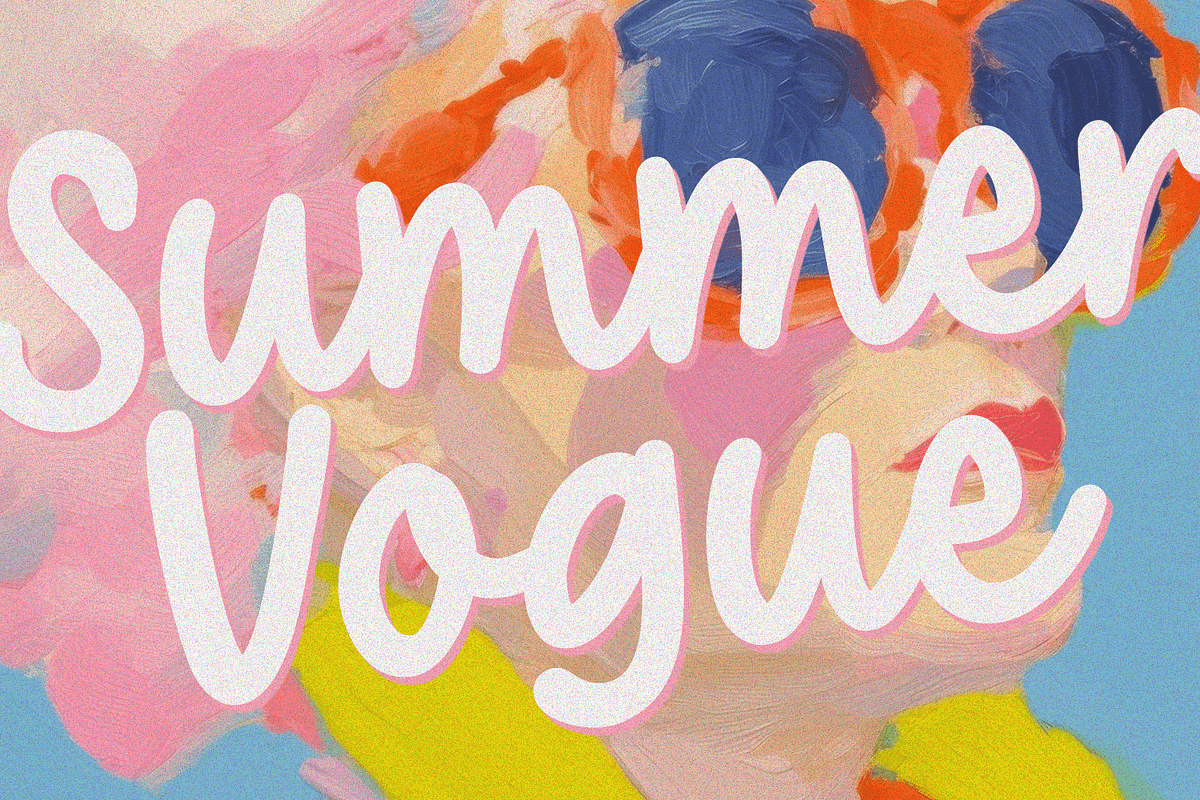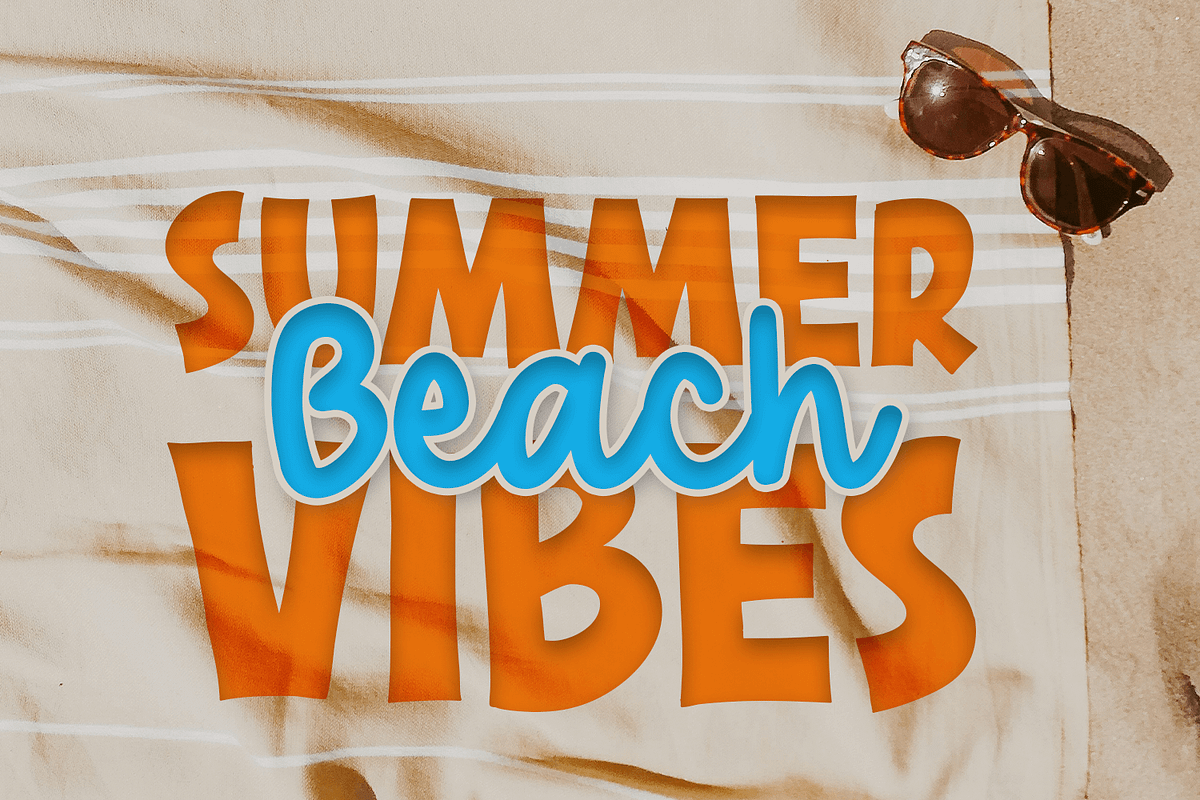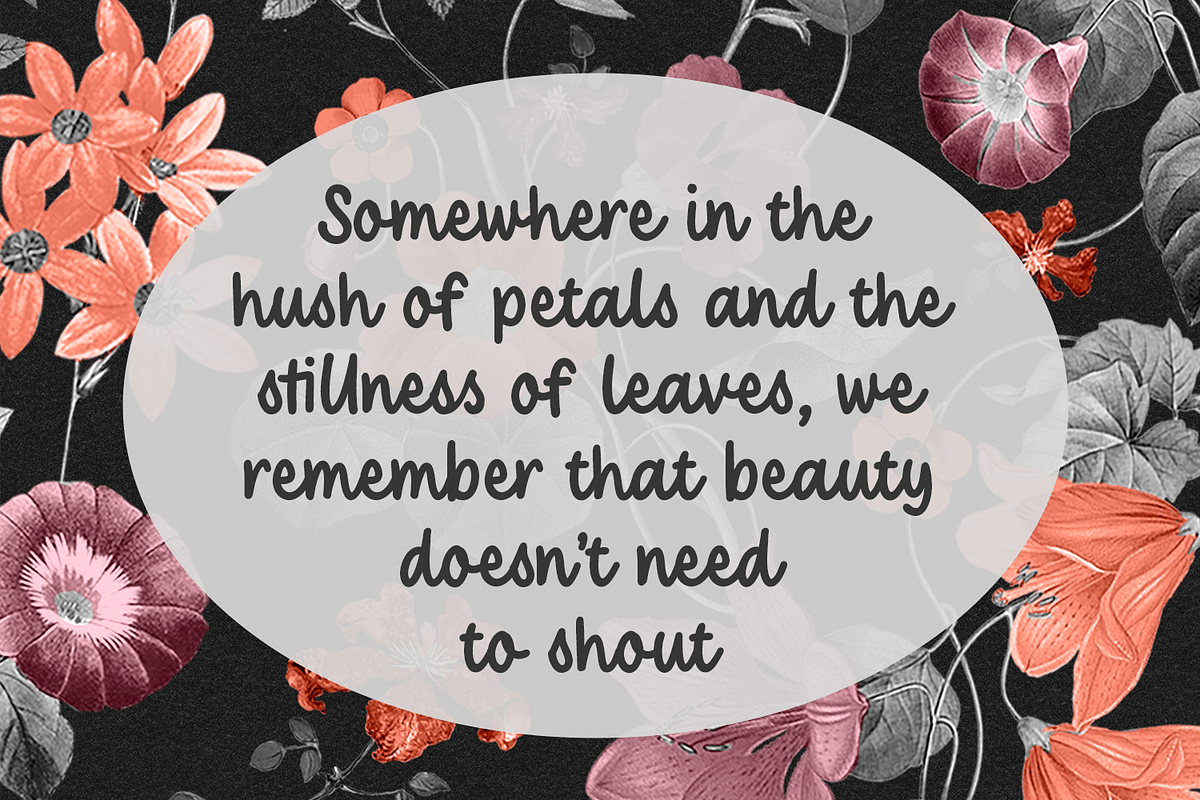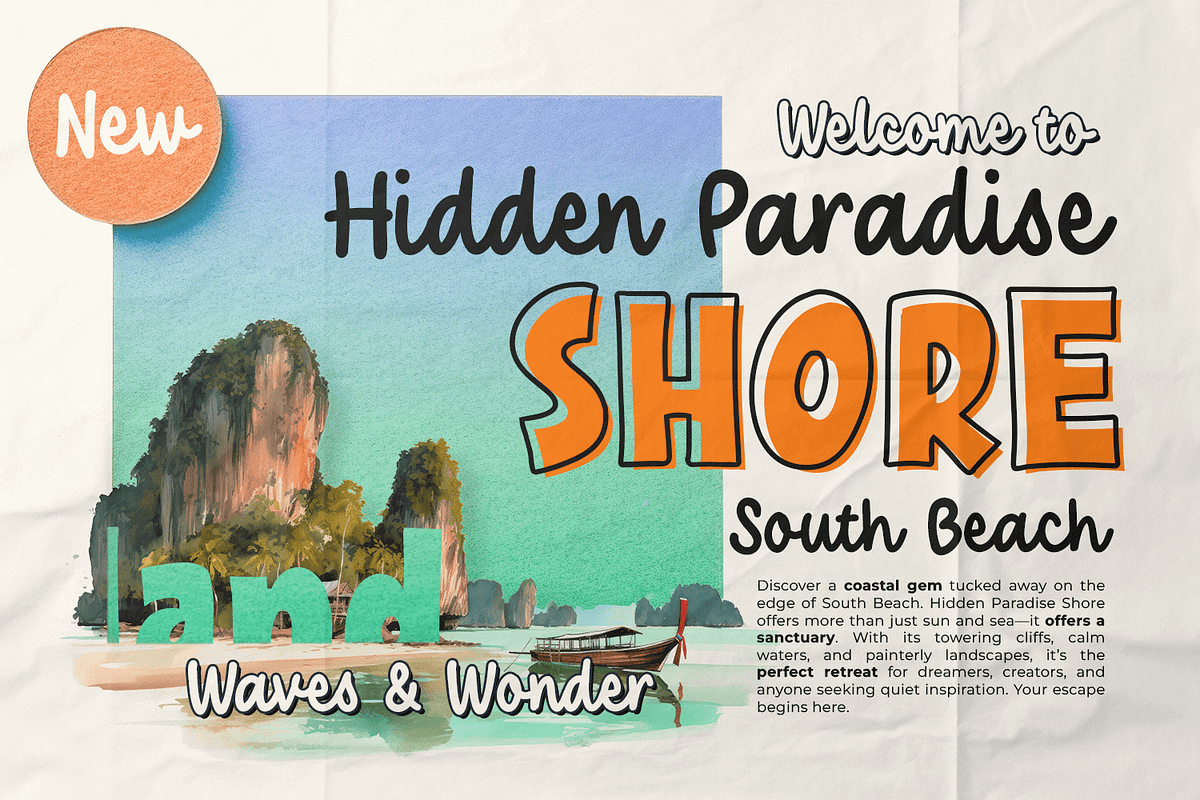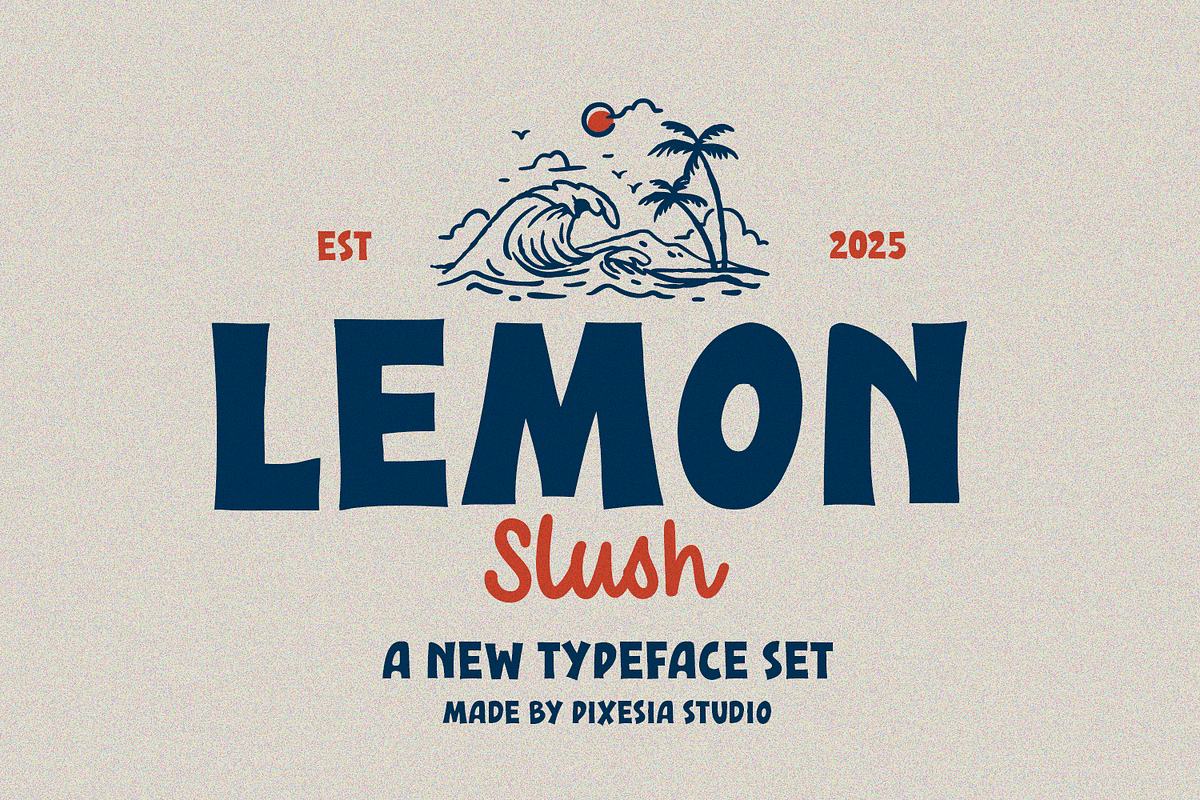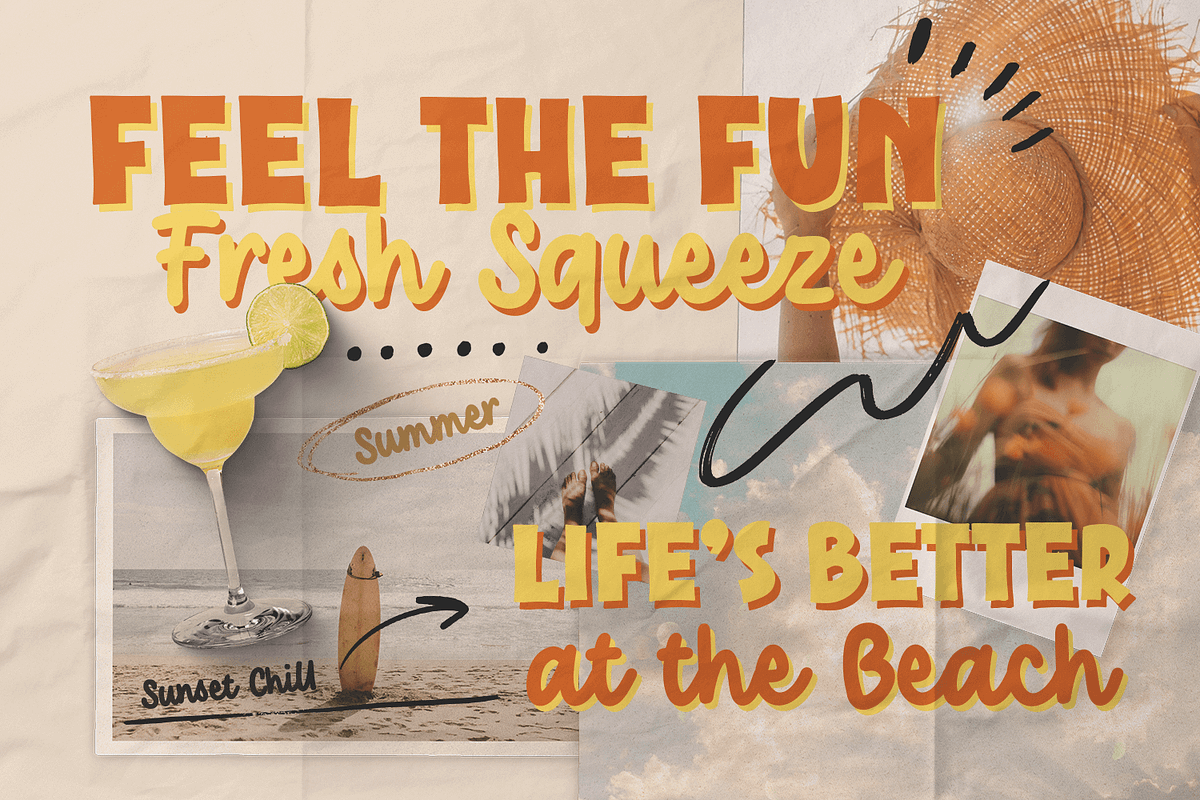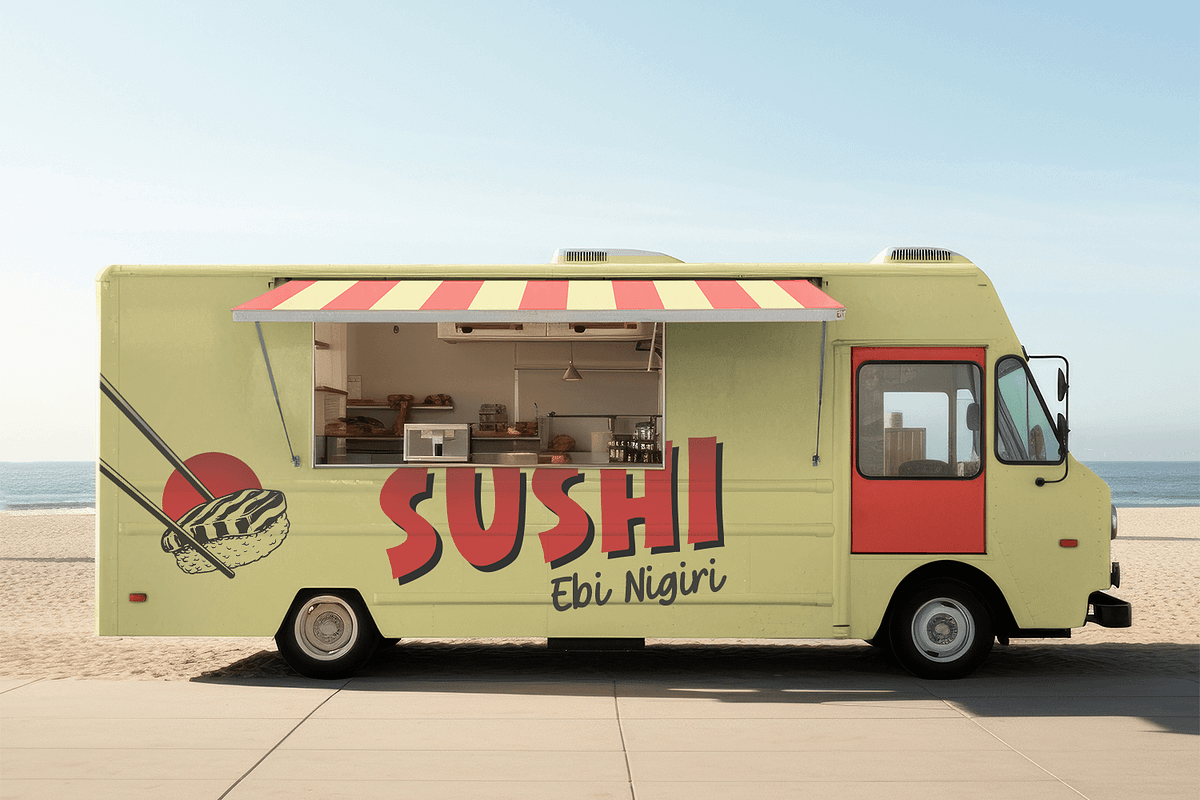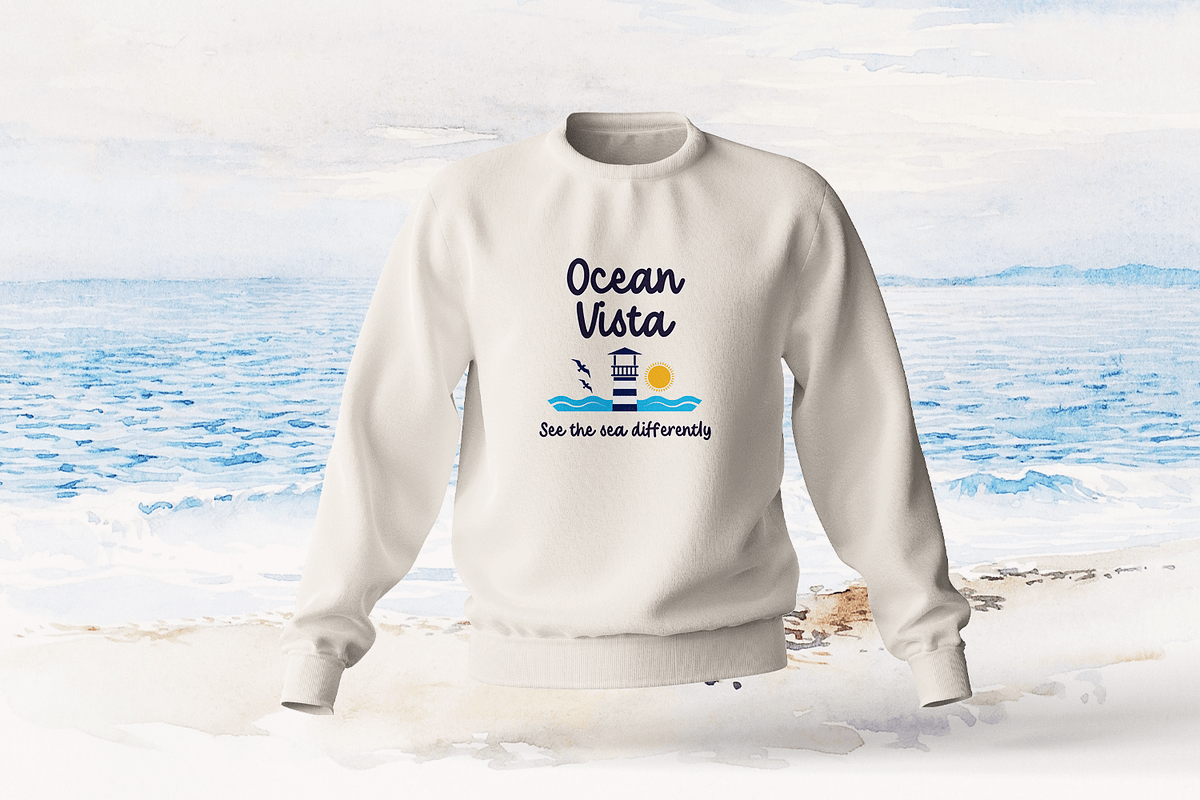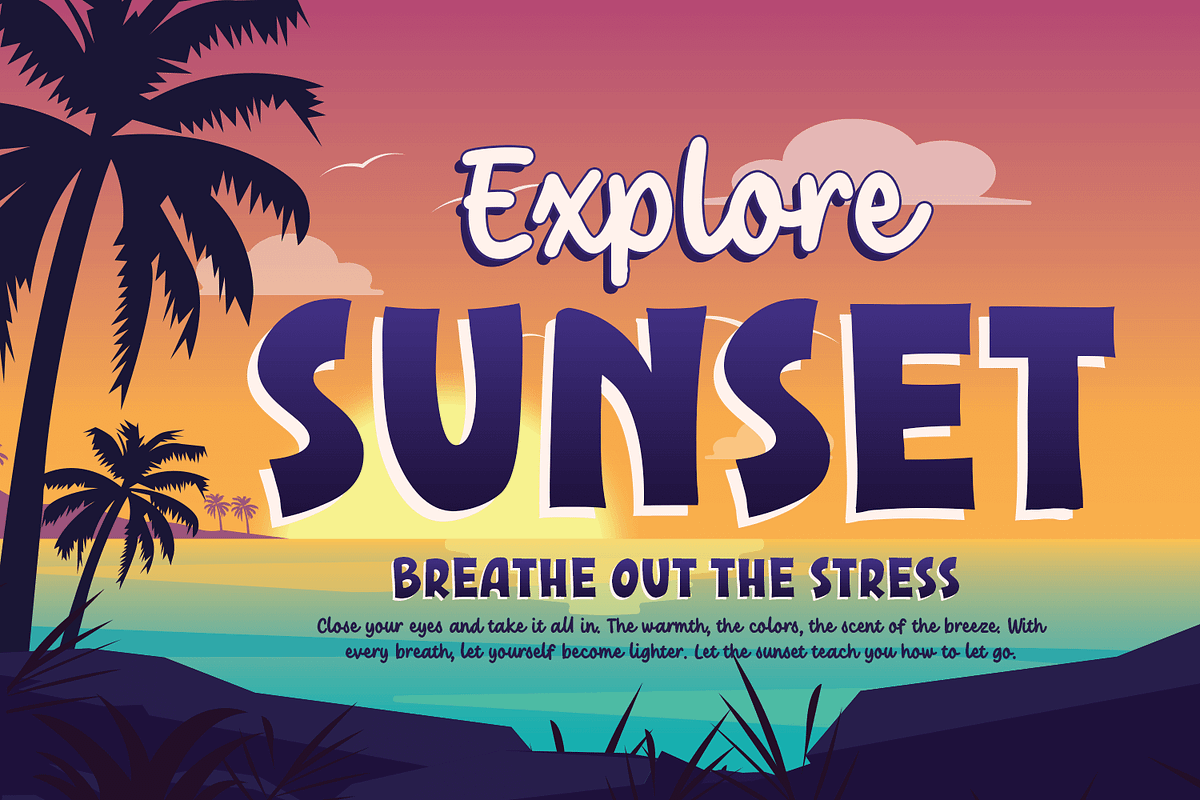
Lemon Slush – Vintage Retro Font Duo
Introducing Lemon Slush – Vintage Retro Font Duo
Lemon Slush is a bold and quirky display font duo inspired by retro beach vibes and hand-drawn lettering. Its playful curves and imperfect shapes bring a refreshing, sun-soaked energy that feels both nostalgic and fun. Perfect for designs that want to stand out with personality and charm.
Lemon Slush works beautifully for logos, posters, summer event promotions, t-shirts, packaging, social media graphics, and creative branding projects that need a vibrant and laid-back aesthetic.